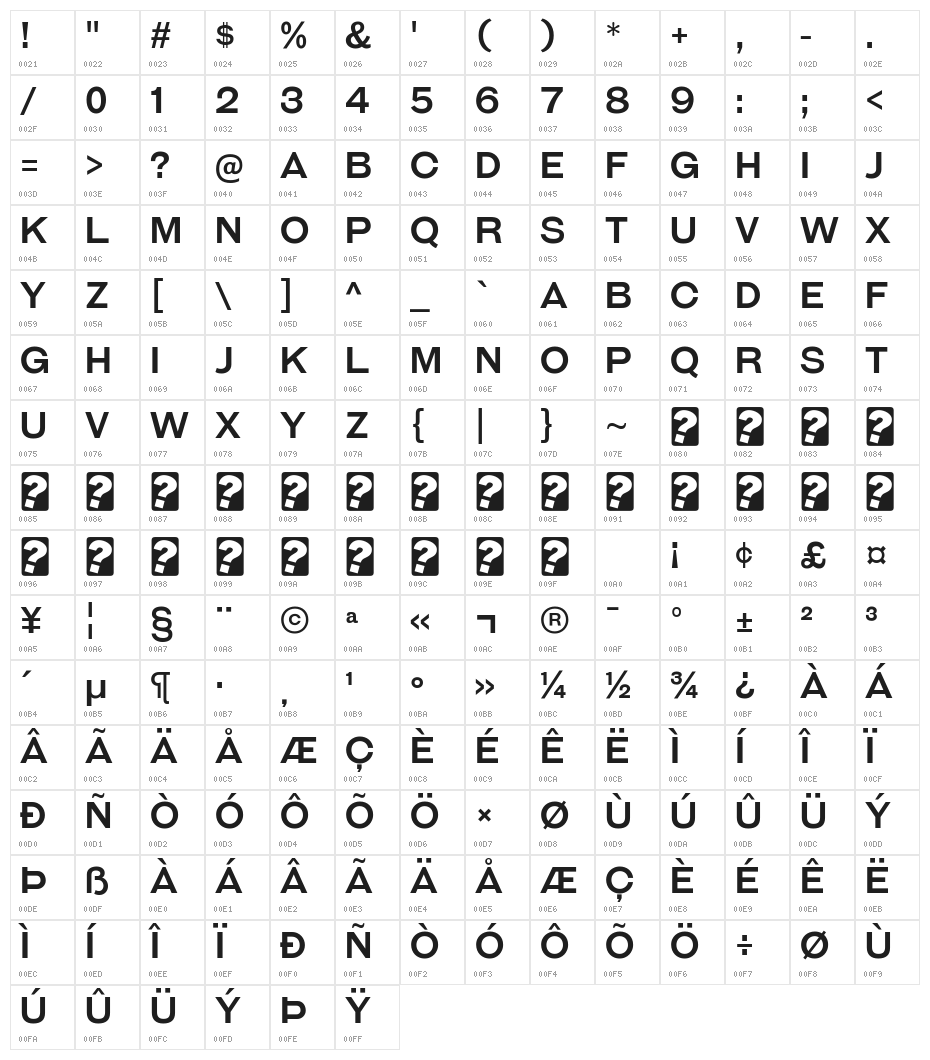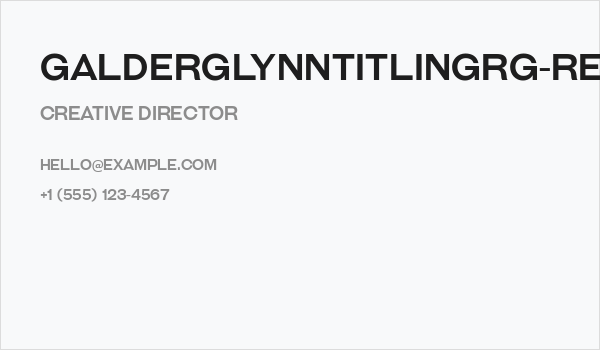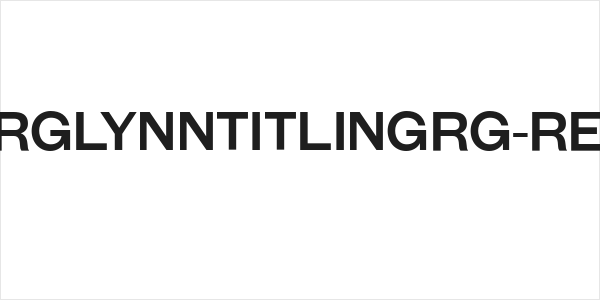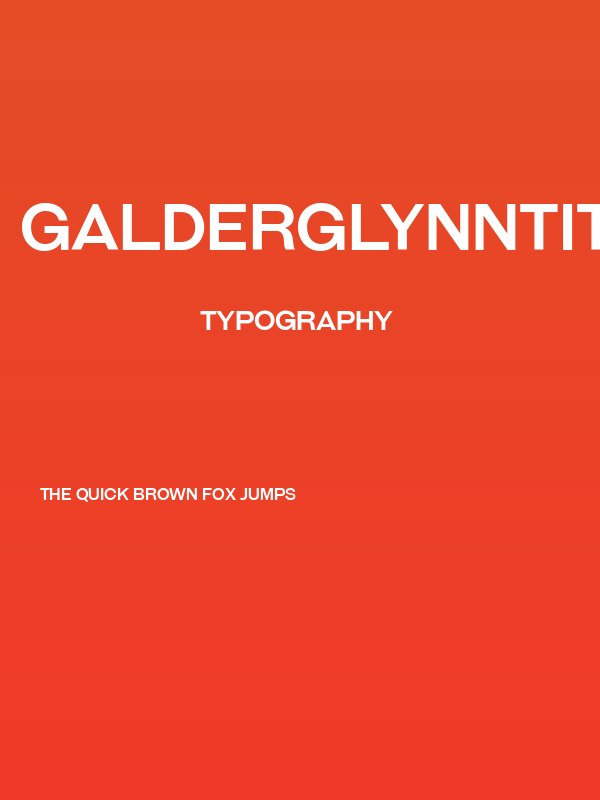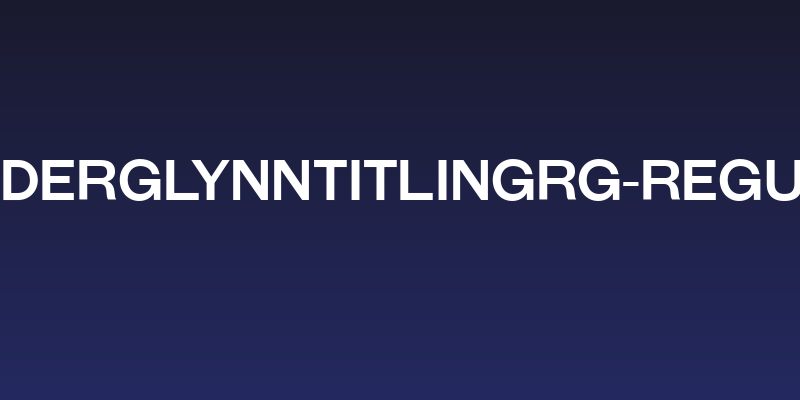
GalderglynnTitlingRg-Regular Font
GalderglynnTitlingRg-Regular Description
This font features a bold and modern sans-serif style with clean, straight lines and uniform stroke widths. Its uppercase and lowercase letters are well-proportioned, offering a sense of balance and clarity. The numerals are distinct and easily readable, making them suitable for various applications. Special characters are designed with the same attention to detail, ensuring consistency across the typeface. The overall appearance is sleek and professional, ideal for contemporary design projects.
| Proposed Projects | Ideal for branding, advertising, headlines, and digital media projects requiring a modern and professional look. |